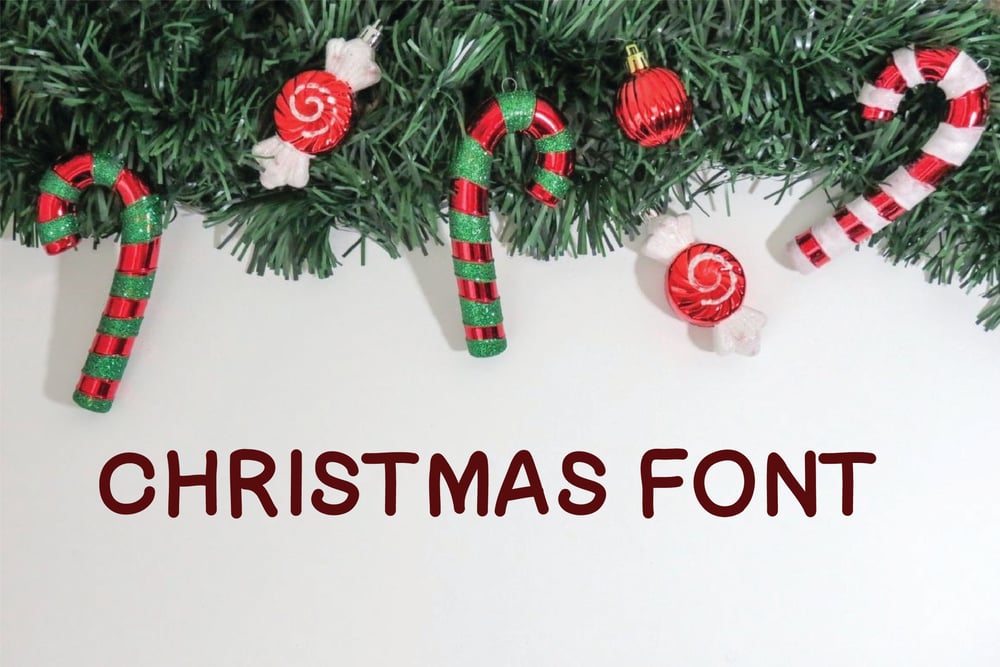
Christmas Handwritten font Font Family was designed by published by Numoofun Fount. Christmas Handwritten font contains 1 styles and family package options. Christmas Font is a typeface perfectly suited for the Christmas season. Simple yet elegant, this font is meticulously hand-drawn, letter by letter, giving it a unique and one-of-a-kind character. It is ideal for designing various media with a Christmas theme. Perfect for: Logos, branding, wedding invitations, farmhouse decor, signs, crafting, mugs, shirts, pantry labels, stickers, business cards, greeting cards, posters, social media, planners, and websites.Features:Supports fast responseEasy to useIncludes uppercase and lowercase lettersContains numbers and punctuation- Perfect for: Logos, branding, wedding invitations, farmhouse decor, signs, crafting, mugs, shirts, pantry labels, stickers, business cards, greeting cards, posters, social media, planners, and websites.- A unique and aesthetically pleasing hand-drawn font